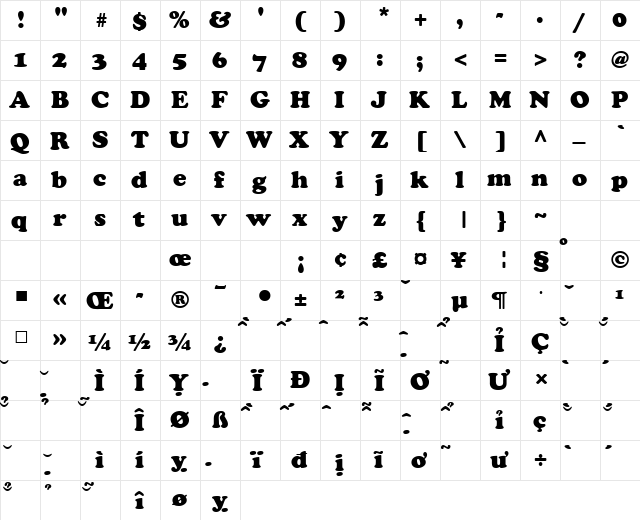
VNI-Cooper Heavy
Design Context for VNI-Cooper Typeface
VNI-Cooper is a composed and adaptable typeface that performs quietly and consistently across a wide range of design contexts.
Pro Tip: Use VNI-Cooper in both headline and body roles to test its range before committing to a single application.